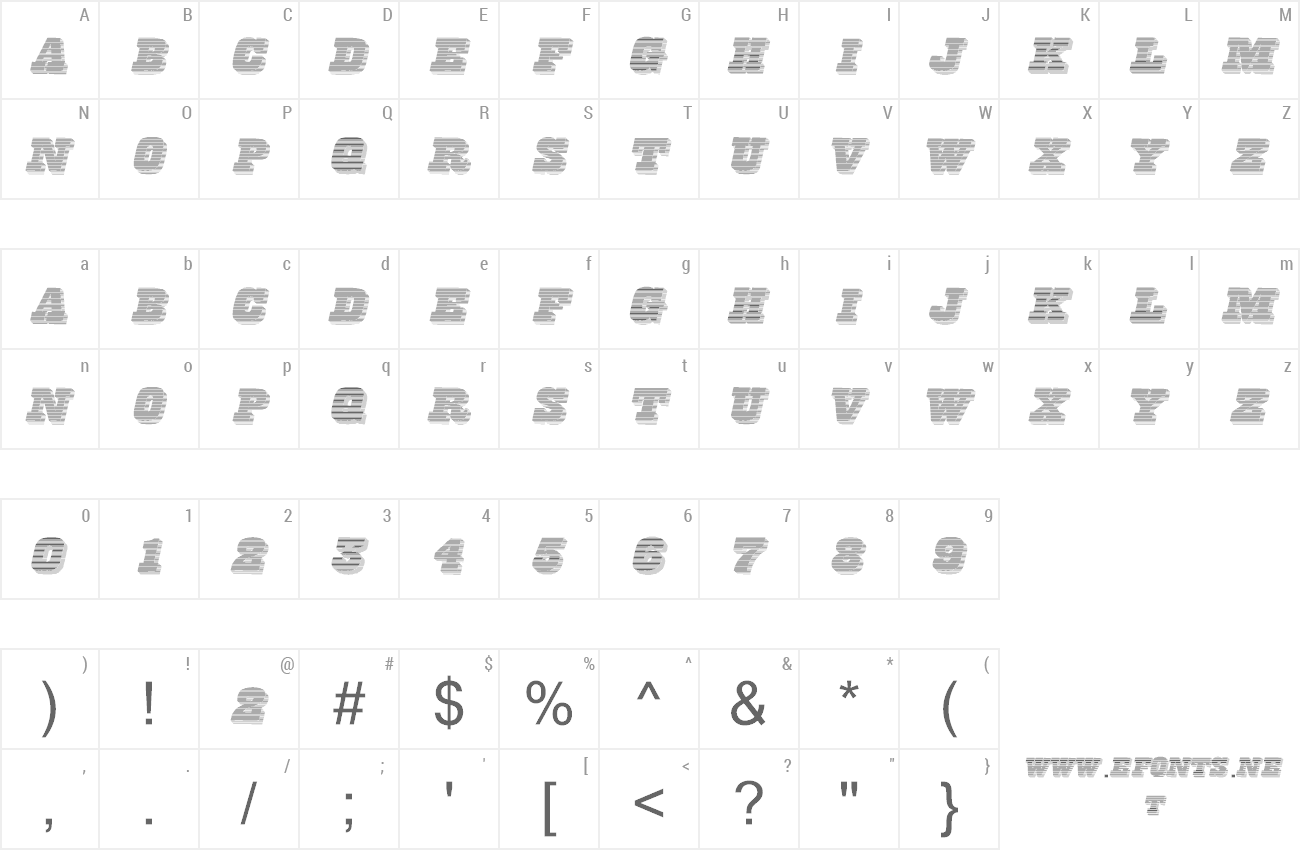
Preview and download FreeLine Font. Created by Xerographer Fonts in Fancy Various styles with Donationware license.
FreeLines! A rad 3d line font. Enjoy the unusual screen effects from scaling! Donate $20 for Unlimited Personal Use! PAYPAL: maxinfeld@hotmail.com Add Xerographer on facebook: facebook.com/infeld |